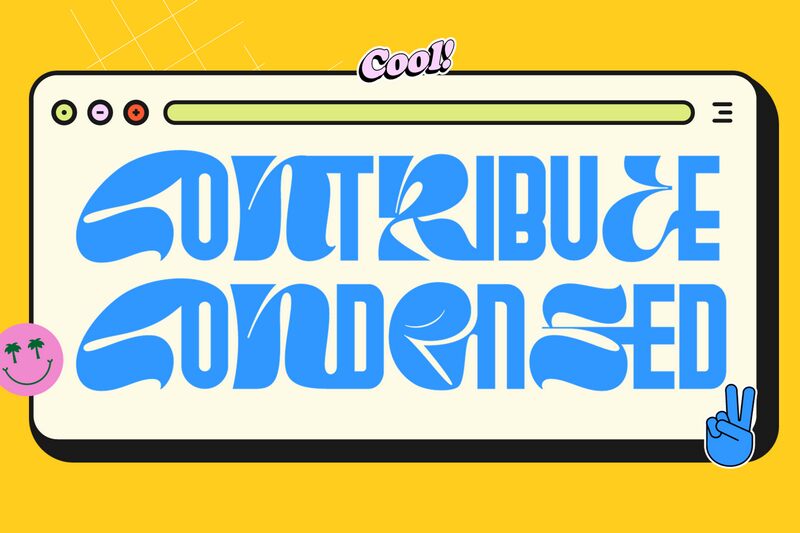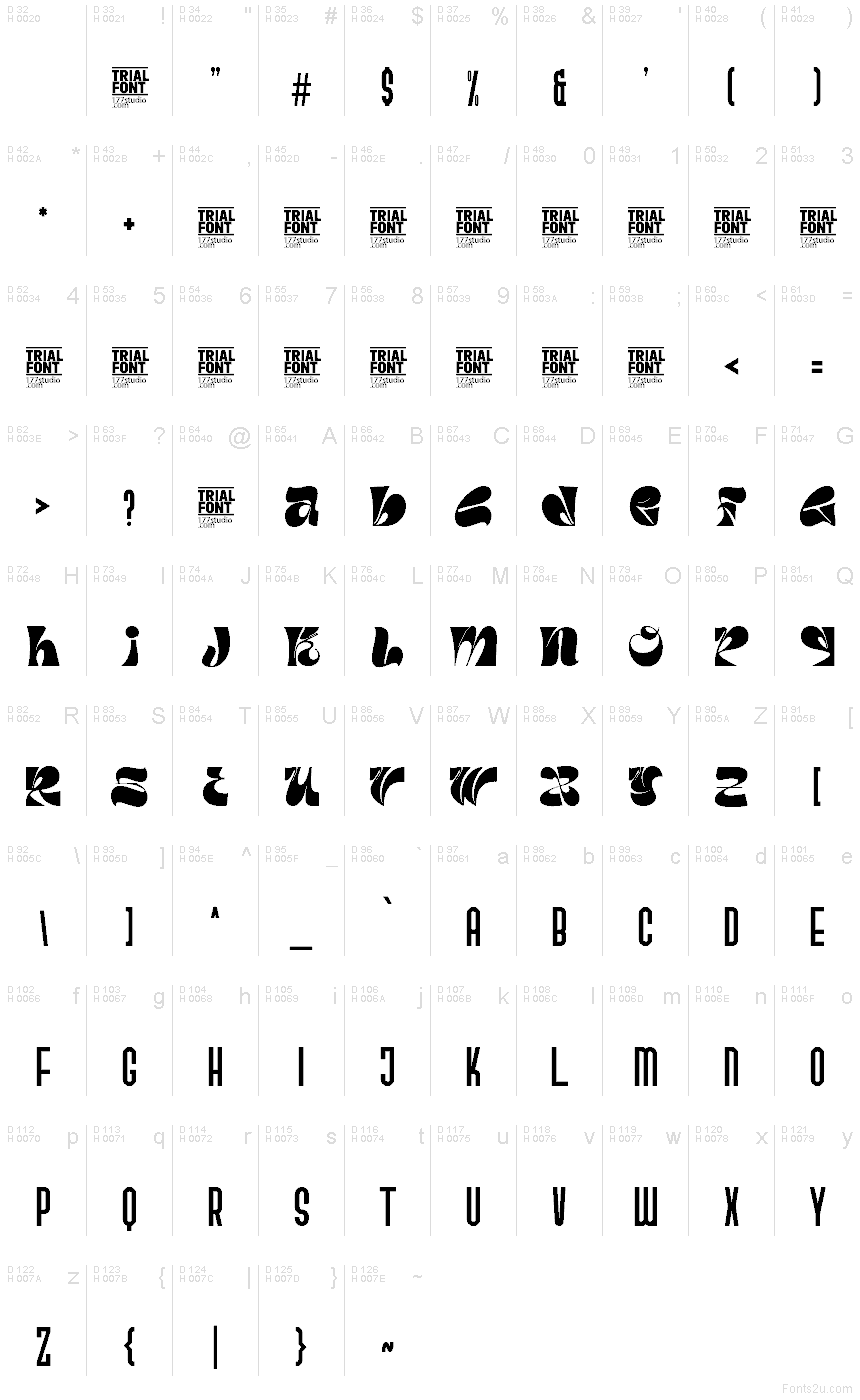
Contribute Condensed Demo Regular
Contribute Condensed font by 177Studio is a free condensed display typeface with a bold, graphic twist. The tall, tightly spaced letters are framed by chunky, bean-shaped end caps that feel almost sculpted, giving every word a logo-like presence. Those inky black bookends create a punchy rhythm across a line, so even short headlines look strong, unified, and hard to miss.
Using Contribute Condensed, you get a striking wordmark feel without hiring a logo designer—which makes it a natural fit for branding, posters, album covers, merch, esports graphics, and bold social media titles. This free font thrives in large sizes where its solid shapes can really lock together. Pair it with a simple geometric sans or a clean grotesque for body text, and let Contribute Condensed carry the heavy visual lifting up top.